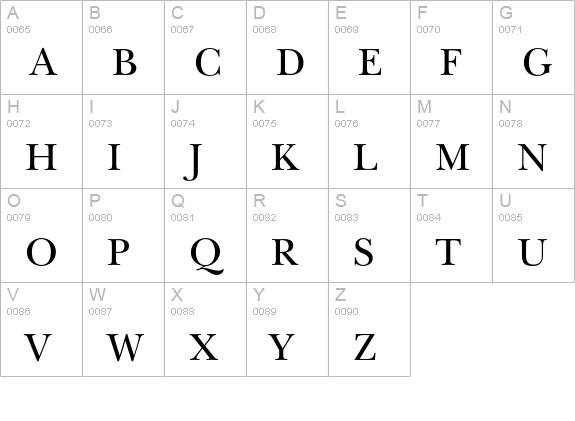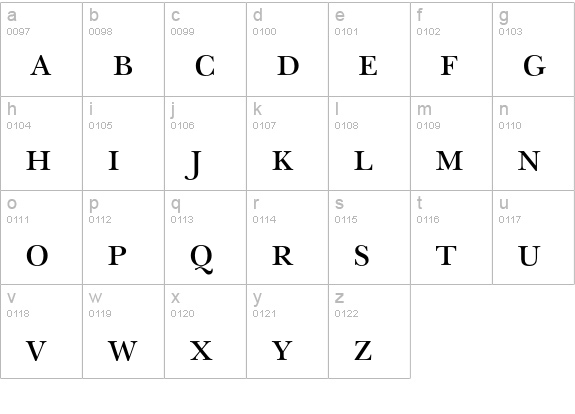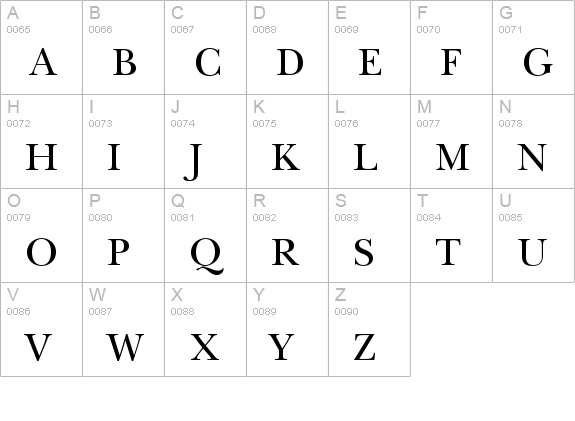
ITC New Baskerville Small Caps & Old Style Figures font is a timeless and elegant typeface that exudes sophistication and class. With its classic design and beautiful calligraphic details, this font is perfect for adding a touch of refinement to any project. The Small Caps and Old Style Figures features give it a unique and distinguished look, making it stand out from other fonts. What makes this font even more appealing is that it is freely available for download at FontsMarket.com. This means that you can easily access and use this stunning typeface for all your design needs without any cost. Whether you're working on a print design, web project, or any other creative endeavor, ITC New Baskerville Small Caps & Old Style Figures font is sure to elevate your work to the next level. Download it today and add a touch of elegance to your designs.